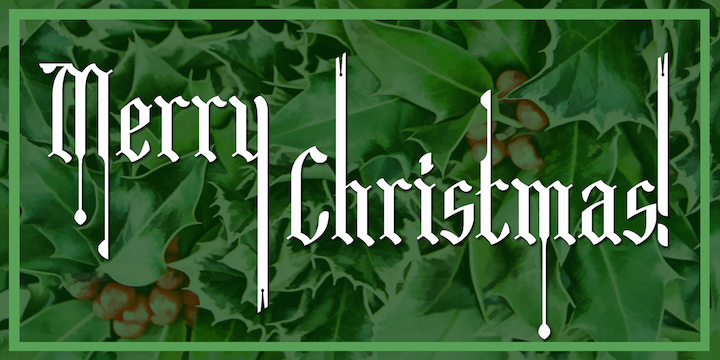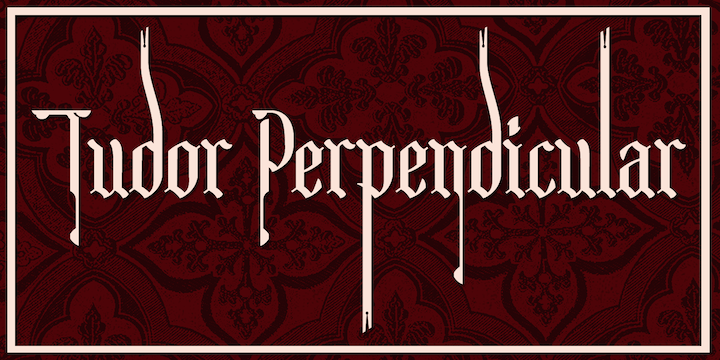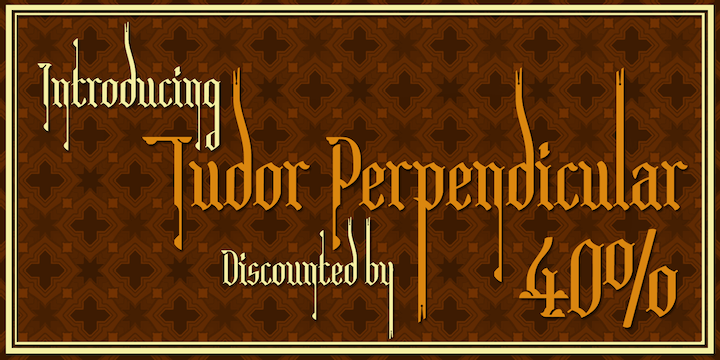
Tudor Perpendicular is a display and blackletter font published by Greater Albion Typefounders.
Tudor Perpendicular is Greater Albion’s seasonal Black letter release (not that we rule out the possibility of non-seasonal ones…) for 2012. As the name suggests, it is a design which emphasises, and yes, exaggerates for effect, the perpendicular up and down nature of Black Letter typefaces. There’s no particular historical basis for this one - straight out of our own minds, just as a lot of Black letter ‘revivals’ have been over the years. Come and visit ‘Ye Olde’ world today…